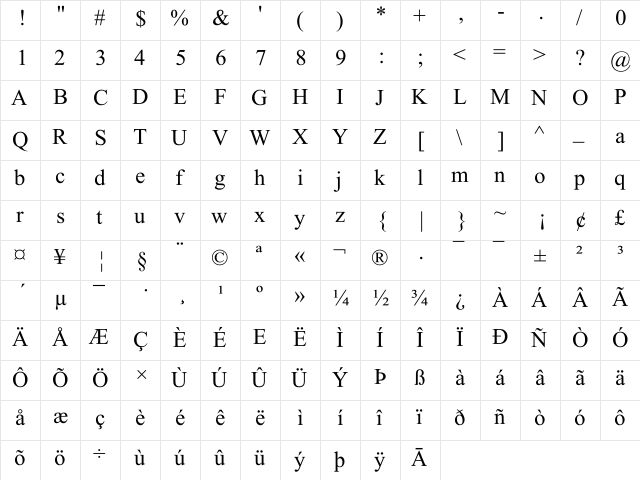
Ekushey Azad Normal Font Preview
Ekushey Azad Normal
Design Context for Ekushey Azad Typeface
Ekushey Azad is a composed and adaptable typeface that performs quietly and consistently across a wide range of design contexts.